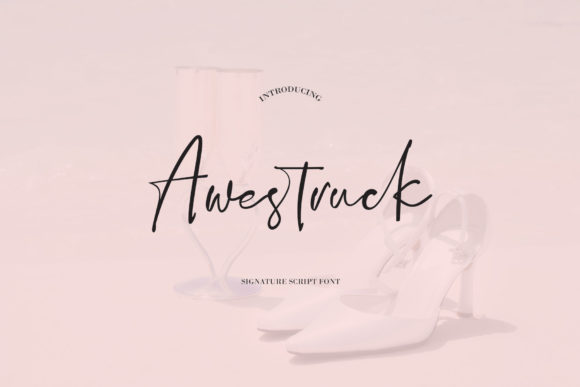
Awestruck Font
**Awestruck Script: Captivating Script Font for Unforgettable Designs**
Prepare to be awestruck by the exquisite charm of Awestruck Script, a captivating font that will leave an unforgettable mark on your creative endeavors. This enchanting script font, meticulously crafted by the talented Arie Design, exudes a captivating flow that draws the eye and sparks imagination.
With its light and airy demeanor, Awestruck Script dances across the page, weaving a spell of elegance and sophistication. Each letterform is a masterpiece of artistry, meticulously shaped to convey a sense of effortless style. The font's delicate curves and graceful flourishes evoke a timeless appeal, reminiscent of classic calligraphy.
Whether you're crafting wedding invitations, designing social media posts, or creating eye-catching logos, Awestruck Script is the perfect choice to add a touch of enchantment. Its versatility knows no bounds, making it a must-have for any designer's toolkit.
Immerse yourself in the world of Awestruck Script and discover a font that will not only elevate your designs but also leave a lasting impression on your audience. Prepare to be captivated by its timeless beauty and unparalleled charm.
**Why Choose Awestruck Script?**
* **Unleash Your Creativity:** Awestruck Script empowers you to express your artistic vision with limitless possibilities. Its graceful flow and enchanting curves provide the perfect canvas for your imagination to soar.
* **Elevate Your Design:** Awestruck Script instantly adds a touch of sophistication and elegance to any design project. Its light and airy nature elevates your creations, giving them a professional and polished look.
* **Make a Lasting Impression:** Every letterform in Awestruck Script is meticulously designed to leave a lasting impact. Your designs will captivate the attention of your audience and create a memorable experience.
* **Versatile and Adaptable:** Awestruck Script's versatility shines through in its ability to complement a wide range of design styles. Whether you're working on elegant invitations, captivating social media posts, or bold logos, this font seamlessly adapts to your vision.
Indulge in the captivating allure of Awestruck Script and unlock the potential for truly unforgettable designs. Its light and cool elegance will inspire your creativity and leave a lasting impression on your audience. Embrace the power of Awestruck Script and watch your designs soar to new heights.